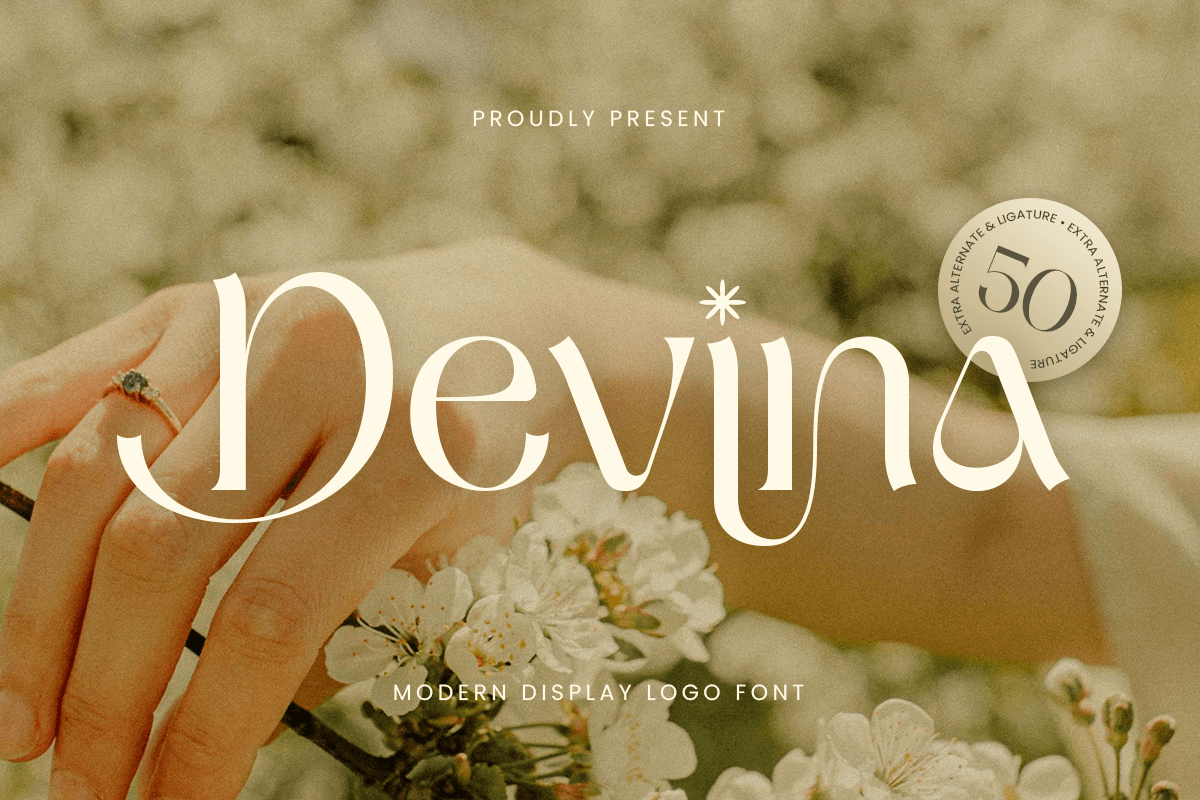
Devina
-Modern Display Logo Font
Devina - Modern Display Logo Font
Devina is a modern display logo font crafted to deliver bold impact with clean, contemporary clarity. With confident shapes and a strong visual presence, this typeface helps brands stand out fast—perfect for designers who want modern typography that feels sharp, stylish, and highly recognizable.
Designed for logo-first applications, Devina works seamlessly across wordmarks, brand identity systems, posters, packaging, labels, website headers, signage, social media graphics, and promotional layouts. Its display-driven structure keeps headlines powerful and legible, while the modern styling supports a polished, professional look across both digital and print.
Whether you’re building a startup logo, creating product branding, launching a creative campaign, or designing modern marketing assets, Devina provides a strong typographic foundation that makes your visuals feel bold, modern, and unmistakably on-brand.
Inspiration Behind Devina
DEVINA is inspired by contemporary branding typography and modern display design—where clarity, confidence, and strong form create instant recognition. The design focuses on clean structure and bold rhythm to support modern identity systems, impactful headlines, and logo-centric communication with a sleek, professional tone.
Devina Font Features:
• Modern display letterforms optimized for logo and wordmark design
• Bold, clean structure for high-impact branding and headlines
• Strong readability for posters, packaging, and marketing layouts
• Logo design, wordmarks, and modern brand identity systems
• Posters, headlines, campaigns, and promotional typography
• Packaging, labels, product branding, and retail visuals
• Website headers, social media graphics, and digital ads
• Signage, presentations, and clean modern marketing assets
Make your branding stand out with Devina — a modern display logo font built for bold, clean visual impact. ✨